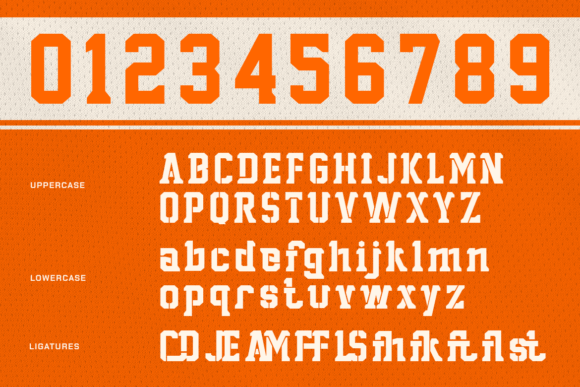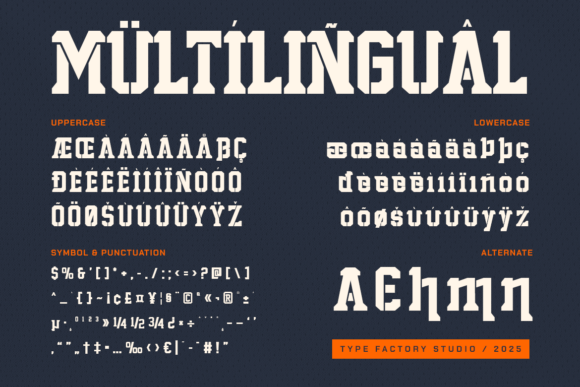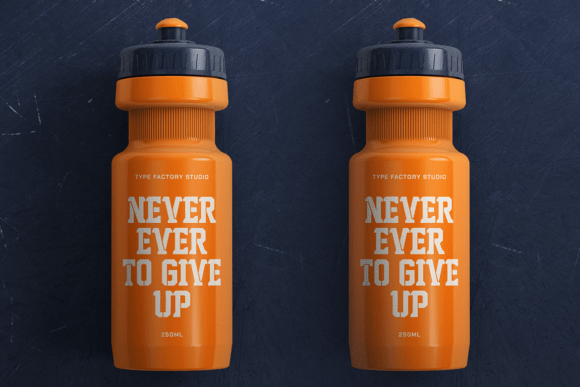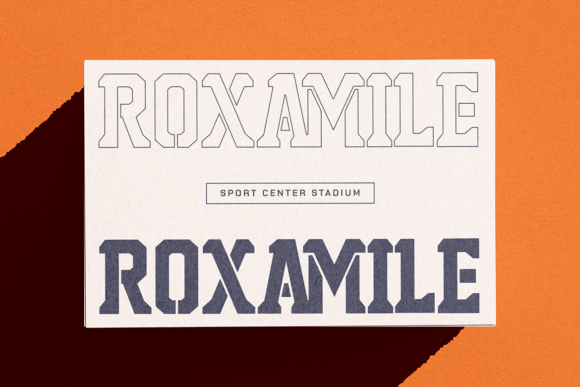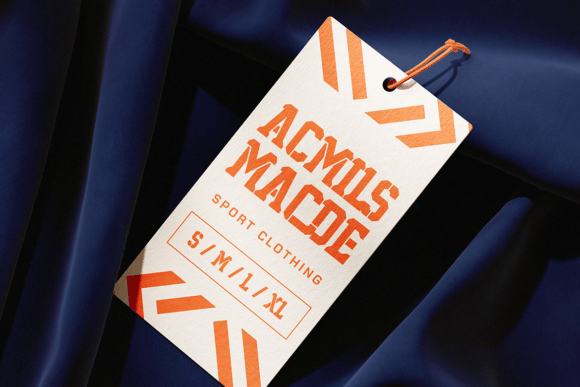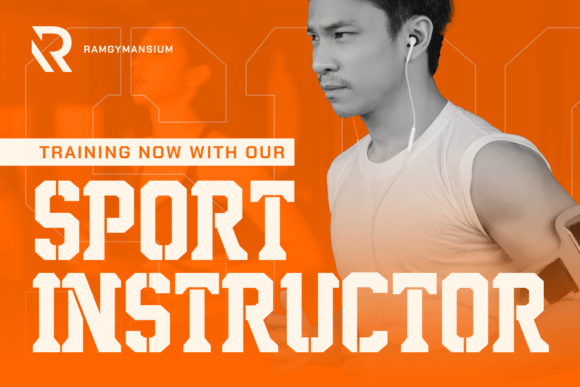
Introducing Champior Font: The Ultimate Bold Sport Jersey Font
Are you looking for a font that embodies the spirit of sports and athleticism? Look no further than Champior Font, a bold sport jersey font inspired by classic varsity and collegiate lettering. This font is designed to help you create stunning sports branding, jersey numbers, team merchandise, event posters, gym promotions, and athletic identity systems that will leave a lasting impression on your audience.
Champior Font features strong slab serifs, structured proportions, and athletic detailing that reflect traditional team uniform typography. The letterforms are carefully crafted to convey a sense of strength, confidence, and energy, making it perfect for sports-related designs. The font’s bold structure and varsity character make it stand out clearly in both print and digital applications, especially at medium to large sizes.
Champior Font comes with a wide range of features that make it an ideal choice for designers and crafters. Some of its key features include:
- Uppercase and lowercase characters: Perfect for creating titles, headings, and body text.
- Numerals: Essential for creating jersey numbers, statistics, and other numerical data.
- Punctuation: Includes a range of punctuation marks to help you create grammatically correct text.
- Ligatures: Adds a touch of elegance to your text with optional ligatures.
- Alternates: Provides alternative characters to help you create unique and creative designs.
- Multilingual support: Supports multiple languages, making it perfect for global design projects.
Champior Font is designed to be versatile and can be used in a variety of applications, including:
- Sports branding: Create a strong brand identity for your sports team or organization.
- Jersey numbers: Design stunning jersey numbers that will make your team stand out.
- Team merchandise: Create eye-catching merchandise, such as t-shirts, hats, and water bottles.
- Event posters: Design posters for sports events, tournaments, and championships.
- Gym promotions: Create promotional materials for gyms, fitness centers, and health clubs.
- Athletic identity systems: Develop a comprehensive brand identity system for your athletic organization.
Champior Font is the perfect choice for designers and crafters who want to create stunning sports-related designs. Here are some reasons why:
- Unique design: Champior Font has a unique and distinctive design that will set your designs apart from others.
- High-quality: The font is designed to high-quality standards, ensuring that it will look great in both print and digital applications.
- Versatile: Champior Font can be used in a wide range of applications, from sports branding to event posters.
- Easy to use: The font comes with a range of features, including uppercase and lowercase characters, numerals, and punctuation, making it easy to use.
Champior Font is a bold sport jersey font that is perfect for designers and crafters who want to create stunning sports-related designs. With its strong slab serifs, structured proportions, and athletic detailing, this font is sure to convey a sense of strength, confidence, and energy. Whether you’re creating sports branding, jersey numbers, team merchandise, event posters, gym promotions, or athletic identity systems, Champior Font is the perfect choice.